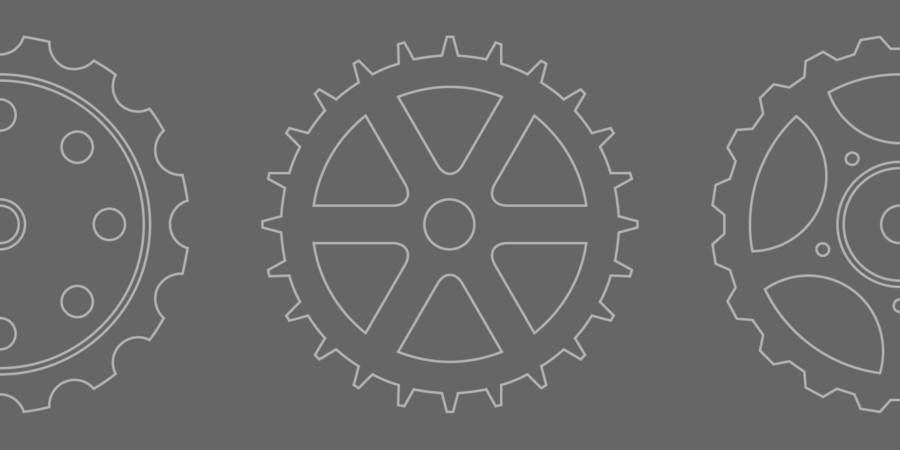
About EngranajesNon-alphabetic font with characters in the form of gears and other elements of watch mechanisms. Engranajes come in handy for steampunk designs. The font family has been designed for Graviton Font Foundry by Pablo Balcells in 2013.